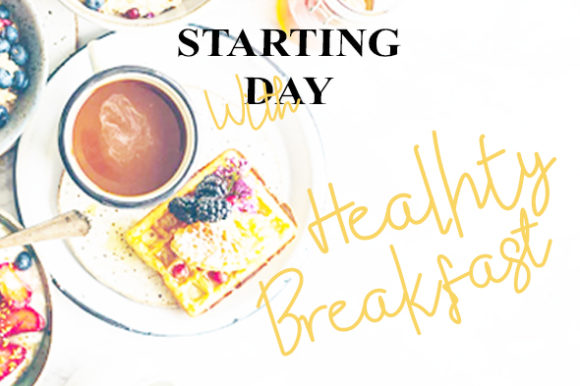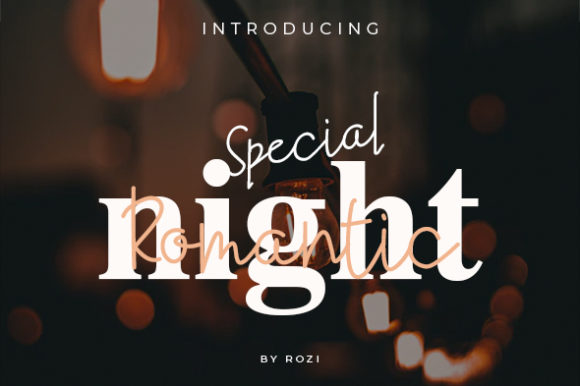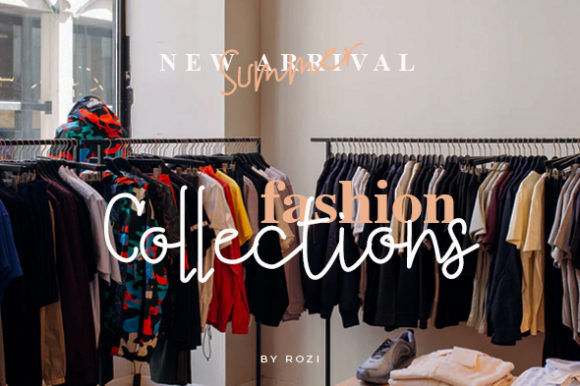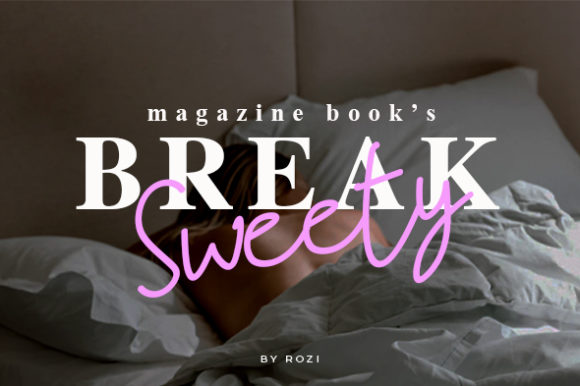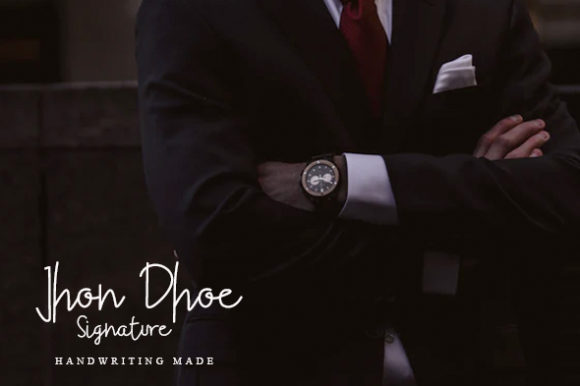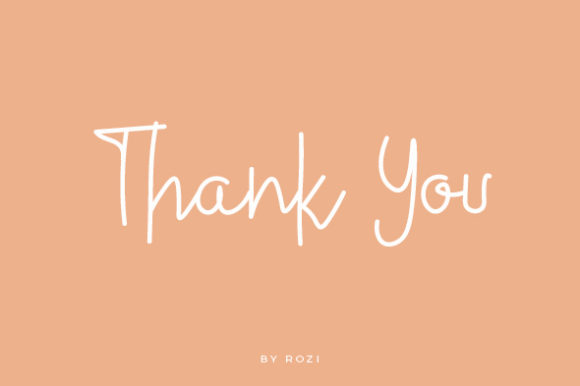
Introducing Galvendish Font: The Sweet and Casual Script with an Editorial Twist
Are you tired of using the same old fonts in your design projects? Look no further than Galvendish Font, a sweet and casual script with an editorial twist that’s sure to add an authentic spark to any design. In this article, we’ll dive into the world of Galvendish Font, exploring its unique features, uses, and benefits for designers and crafters.
What is Galvendish Font?
Galvendish Font is a beautifully crafted script font that exudes a sense of warmth and approachability. Its casual, handwritten feel makes it perfect for designs that require a personal touch, such as branding, packaging, and editorial projects. With its unique blend of sweetness and sophistication, Galvendish Font is sure to capture the attention of your audience and leave a lasting impression.
Key Features of Galvendish Font
So, what sets Galvendish Font apart from other script fonts on the market? Here are just a few of its key features:
- Sweet and Casual Script: Galvendish Font boasts a playful, cursive feel that’s perfect for designs that require a touch of whimsy and personality.
- Editorial Twist: With its refined and elegant lines, Galvendish Font is also suitable for editorial projects, such as magazines, blogs, and books.
- Authentic Look and Feel: Galvendish Font has a distinctly handmade feel, giving your designs an authentic and relatable quality.
- Versatile and Adaptable: Whether you’re designing for print or digital, Galvendish Font is versatile enough to adapt to any design project or style.
Uses for Galvendish Font
Galvendish Font is an incredibly versatile font that can be used in a wide range of design projects, including:
- Branding and Packaging: Use Galvendish Font to create eye-catching logos, labels, and packaging that stands out on store shelves.
- Editorial Design: Add a touch of elegance and sophistication to your editorial projects, such as magazines, blogs, and books.
- Digital Design: Use Galvendish Font in digital designs, such as social media graphics, website headers, and email newsletters.
- Crafting and DIY Projects: Galvendish Font is perfect for crafters and DIY enthusiasts who want to add a personal touch to their projects, such as handmade cards, scrapbooking, and journaling.
Benefits of Using Galvendish Font
So, why choose Galvendish Font for your design projects? Here are just a few benefits:
- Adds a Personal Touch: Galvendish Font gives your designs a distinctly handmade feel, making them more relatable and engaging.
- Unique and Memorable: With its sweet and casual script, Galvendish Font is sure to leave a lasting impression on your audience.
- Easy to Read: Despite its playful feel, Galvendish Font is incredibly legible, making it perfect for body text and headlines.
- Supports Multiple Languages: Galvendish Font supports multiple languages, making it a great choice for international design projects.
Tips and Tricks for Using Galvendish Font
Here are a few tips and tricks to help you get the most out of Galvendish Font:
- Pair with Other Fonts: Experiment with pairing Galvendish Font with other fonts to create a unique and harmonious typography combination.
- Adjust Font Size and Style: Play around with different font sizes and styles to add visual interest and hierarchy to your designs.
- Use in Combination with Images: Combine Galvendish Font with high-quality images to create stunning visuals that capture the attention of your audience.
With these tips and tricks, you’ll be well on your way to creating stunning designs with Galvendish Font!